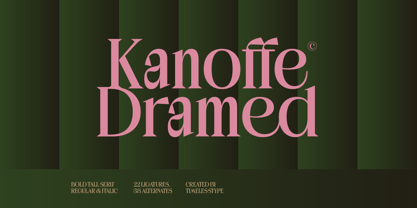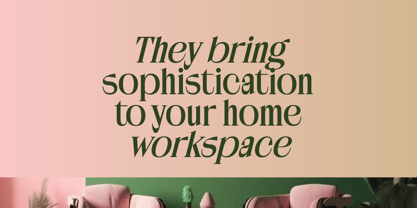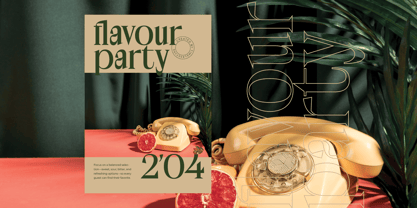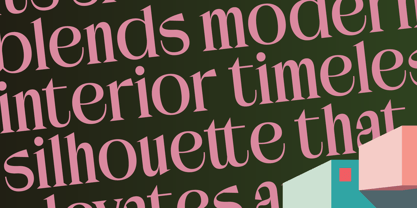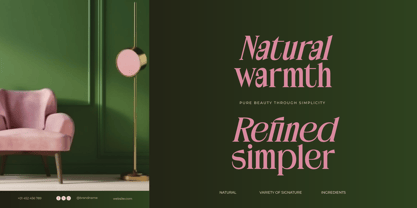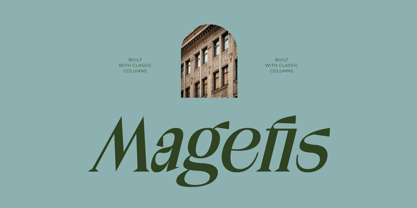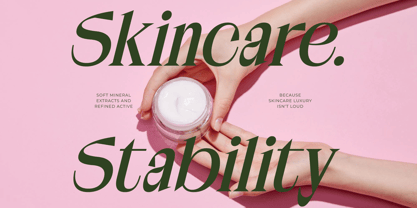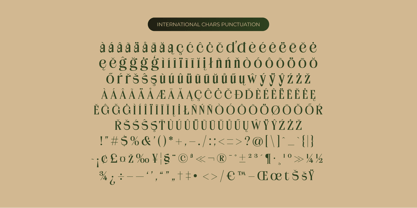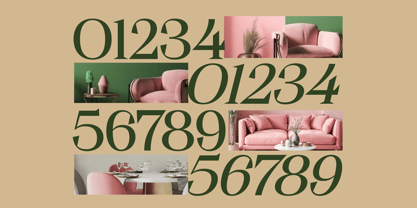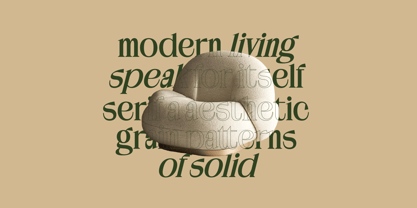
Kanoffe Dramed
The Kanoffe Dramed Font Family was designed by Heru Utama Putra and published by Timelesstype Studio. Kanoffe Dramed contains 2 styles and family package options. More about this family
Kanoffe Dramed - Bold Tall Serif Font, from Timelesstype , Suitable for any projects such as: logos, branding projects, homeware designs, product packaging, mugs, quotes, posters, shopping bags, t-shirts, book covers, name card, invitation cards, greeting cards, label, photography, watermark, special events, and all your other luxury and beautiful projects that need a Luxury Serif taste.